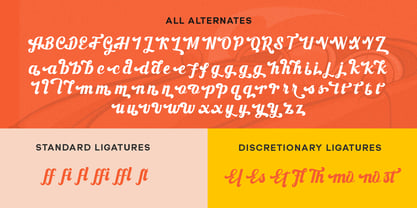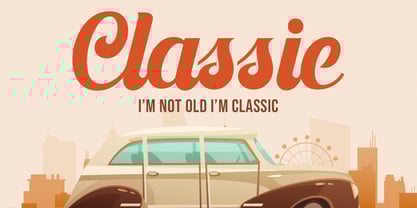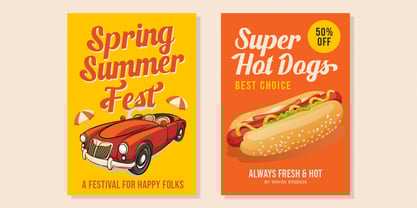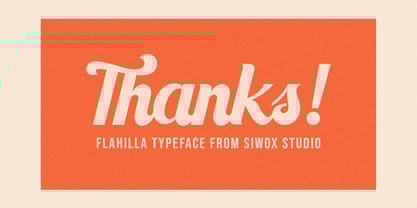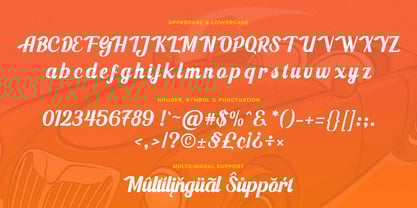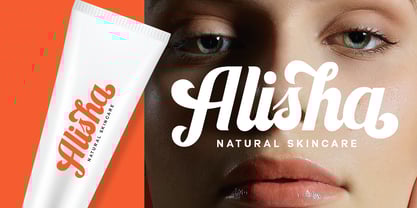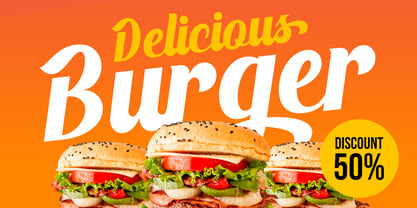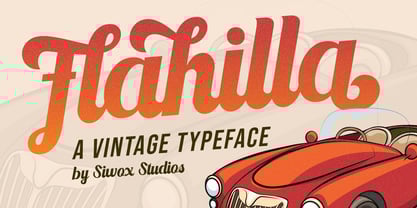
Flahilla
by Siwox Studios
The Flahilla Font Family was designed by Rizaldi Wandani and published by Siwox Studios. Flahilla contains 1 styles. More about this family
Flahilla is a bold vintage script font inspired by bar signs, hotel signs, barbershop signs, etc. Flahilla has a classic yet elegant feel, suitable for both modern and classic design projects. Flahilla comes with beautiful alternates and ligatures. Flahilla is perfect for designing badges, labels, t-shirts, branding, logos, posters, book covers, packaging, and more.
Designers: Rizaldi Wandani
Foundry: Siwox Studios